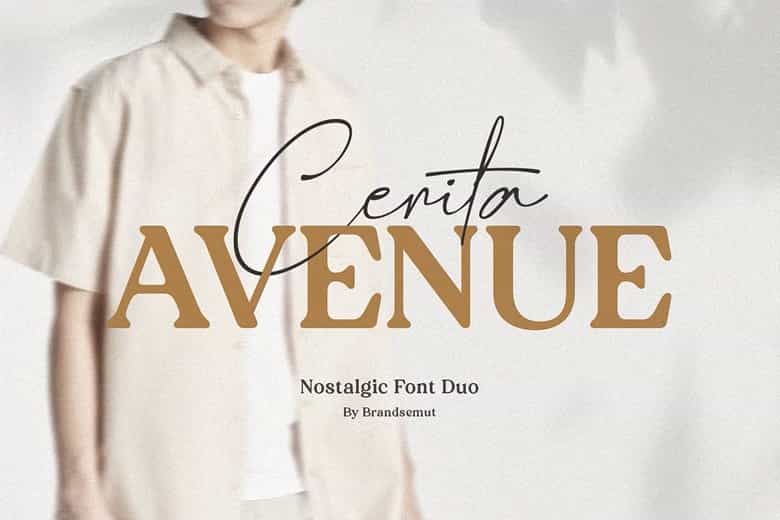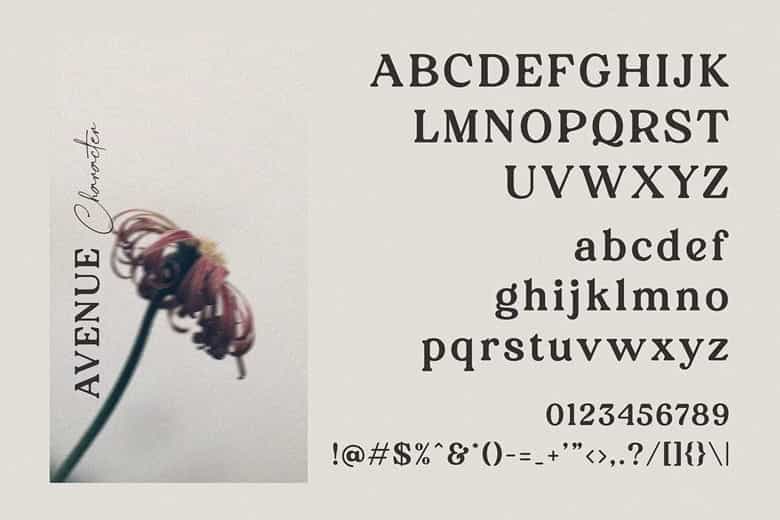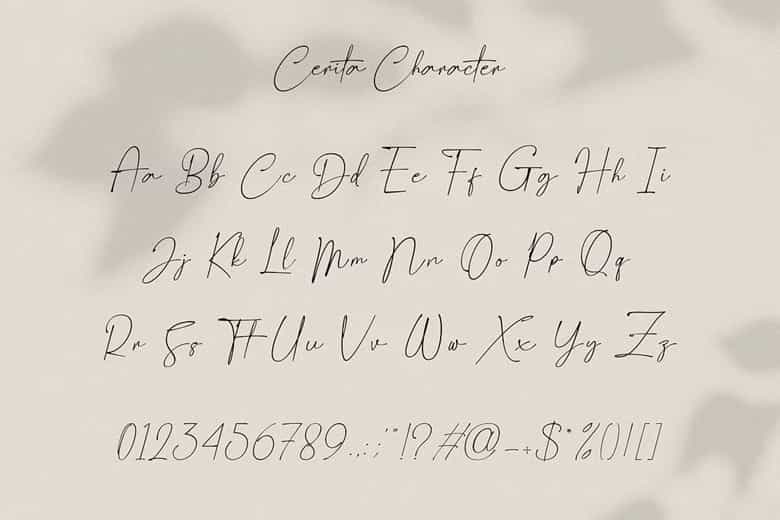
Cerita Avenue Font
Cerita Avenue is a beautiful font duo that comprises a script typeface and a serif typeface that are perfectly compatible, and they are set to be used simultaneously! Cerita Avenue can be applied best for headings, logos, branding, magazines, cardboard packs, invite cards, etc.